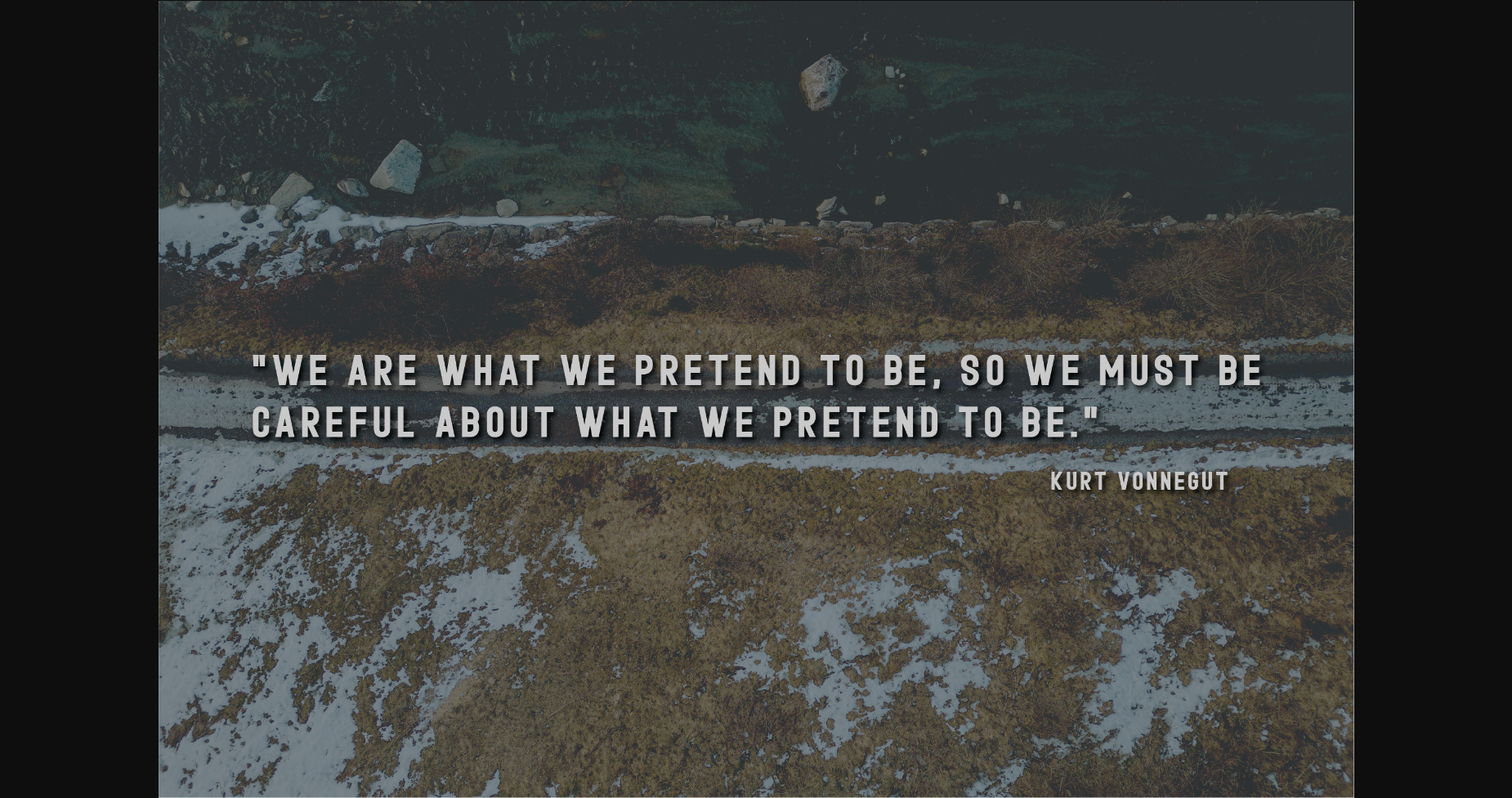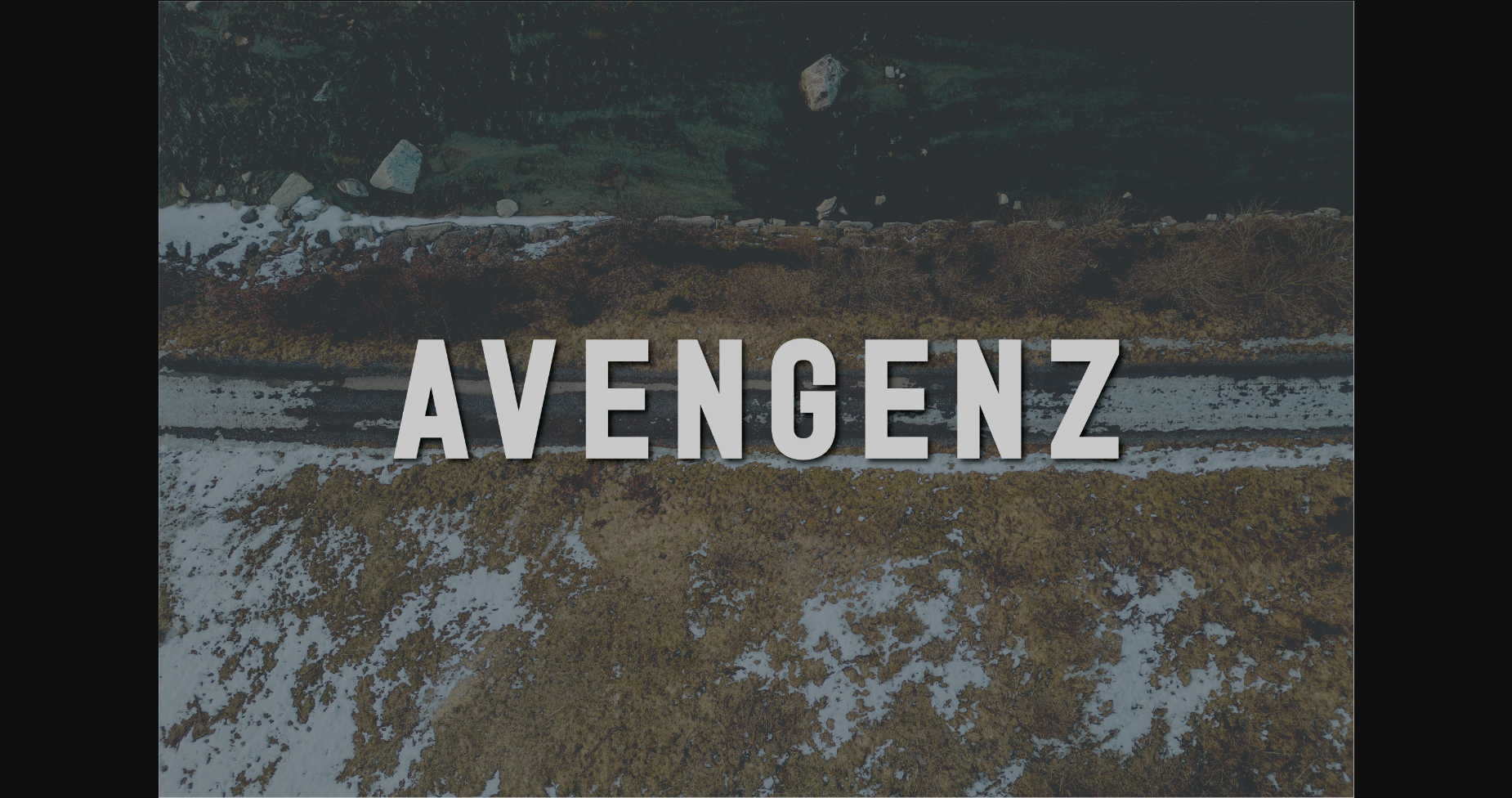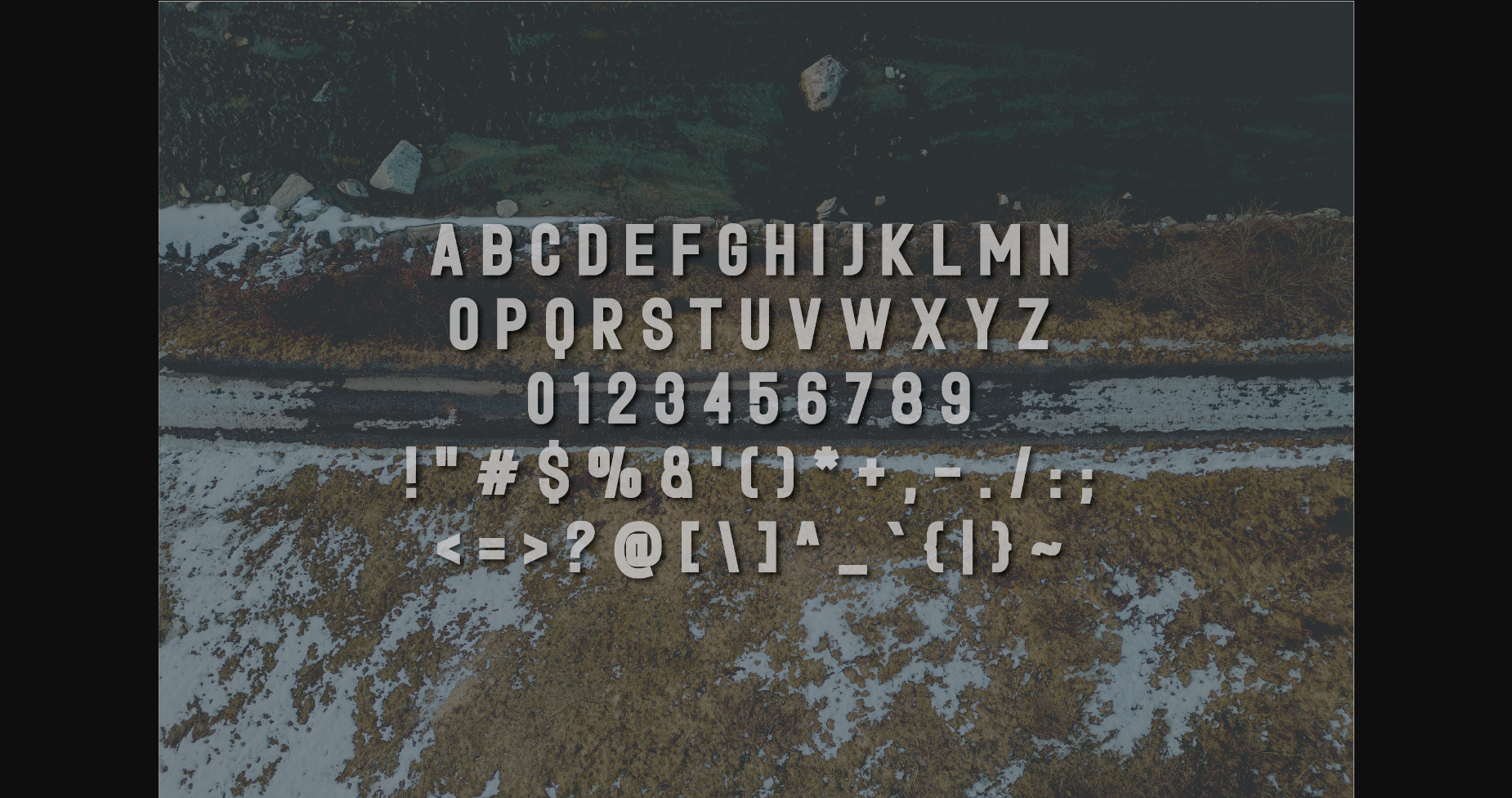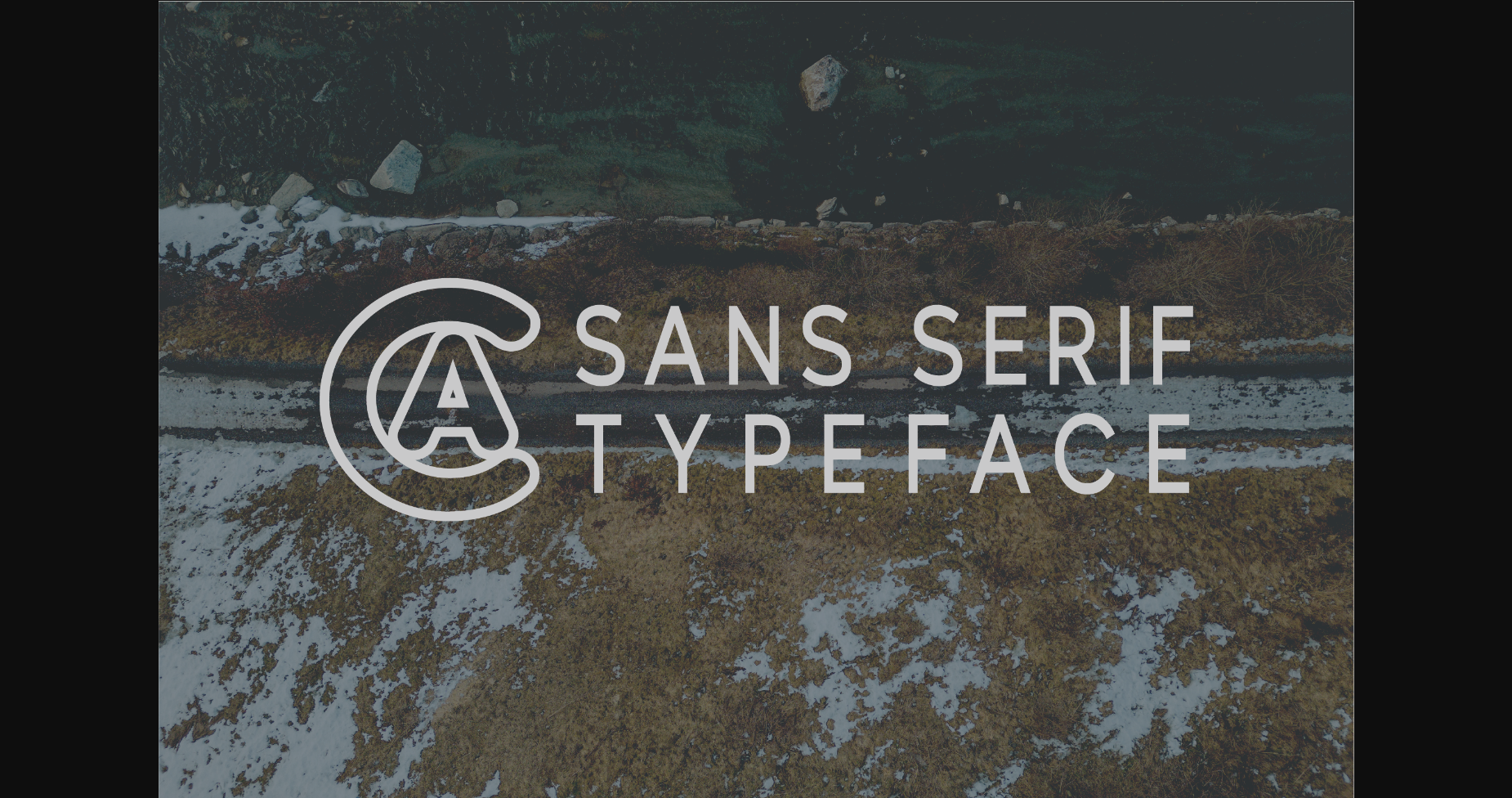
About Avengenz Font
Avengenz is a versatile, modern, and classy sans serif font perfect for logos, weddings, invitations, quotes, advertisements, print, magazines, and more. Add it to your most creative ideas, and notice how it makes them come alive!